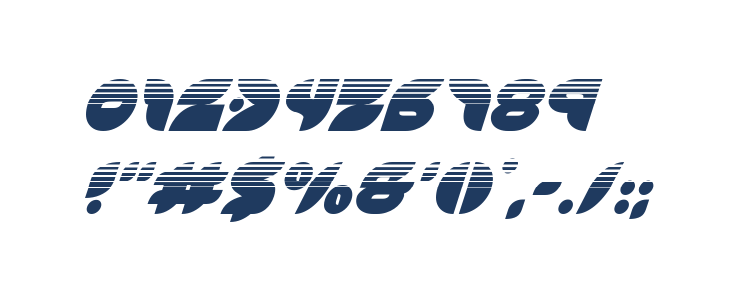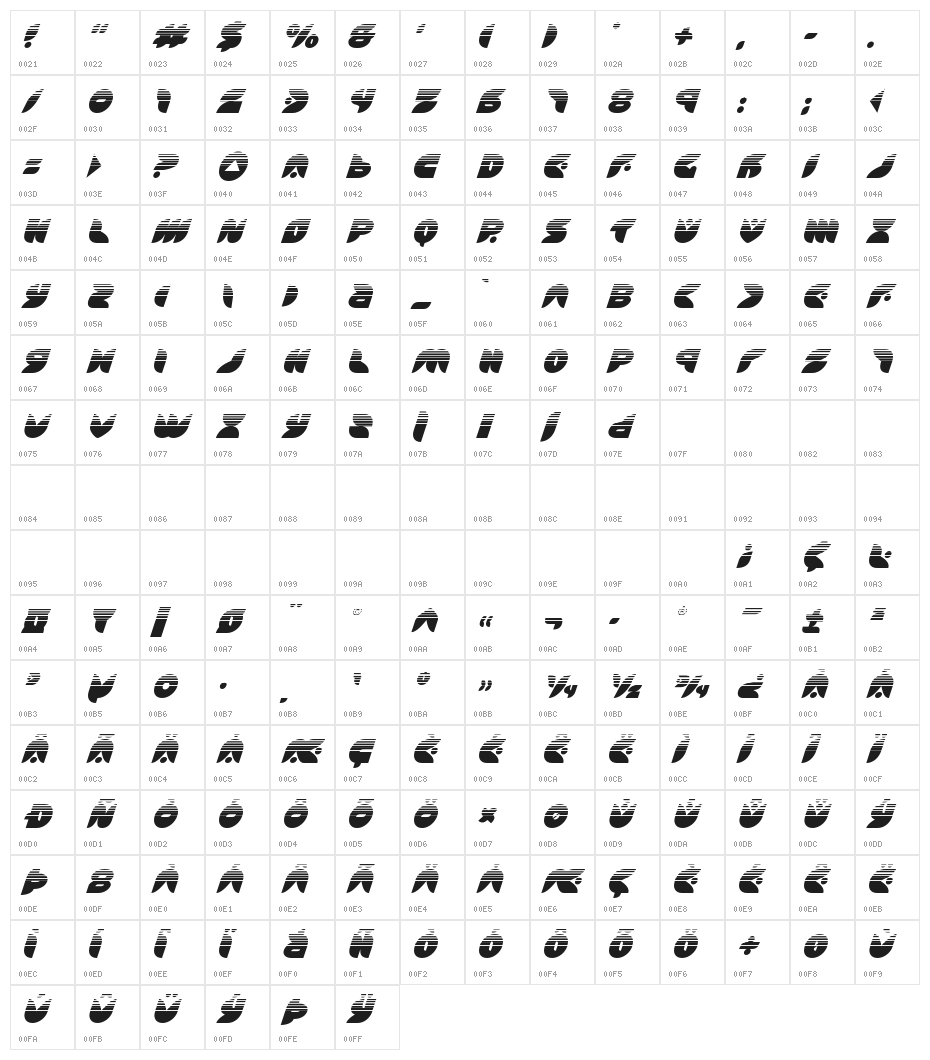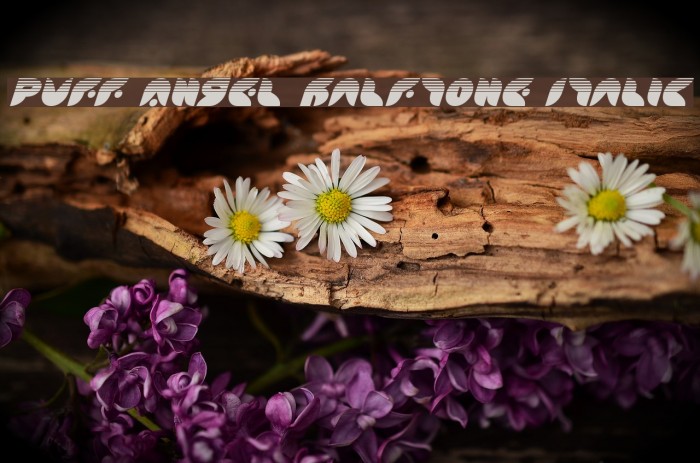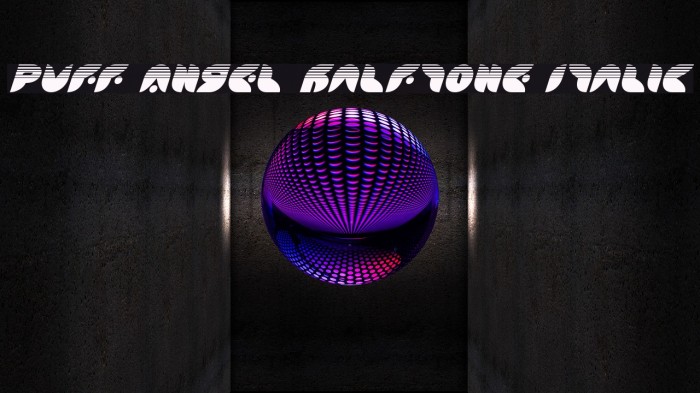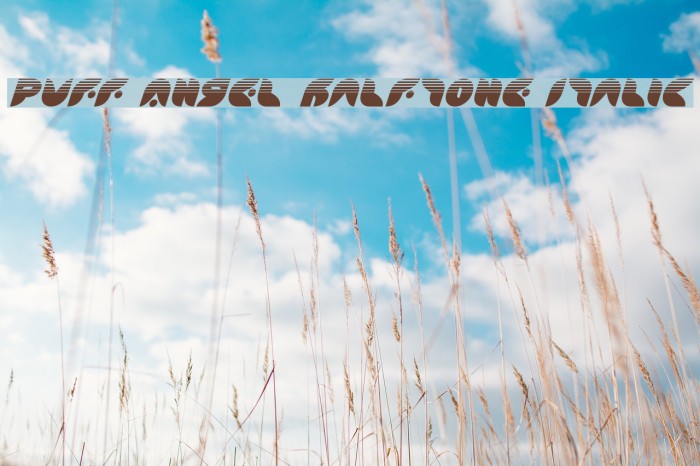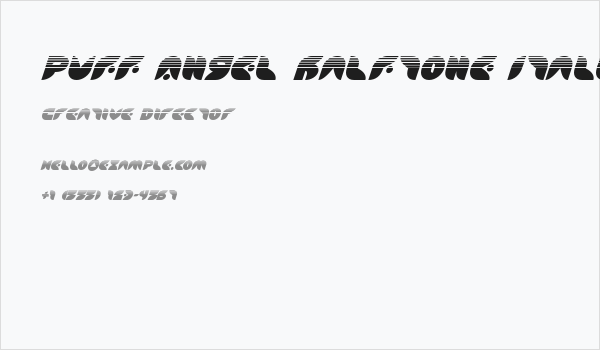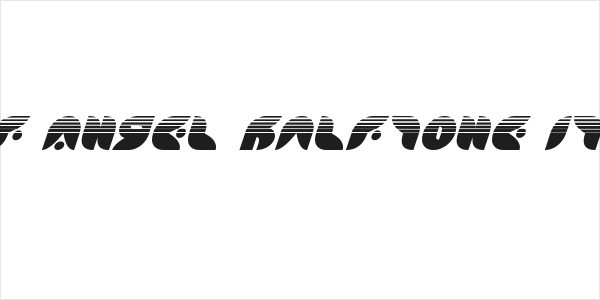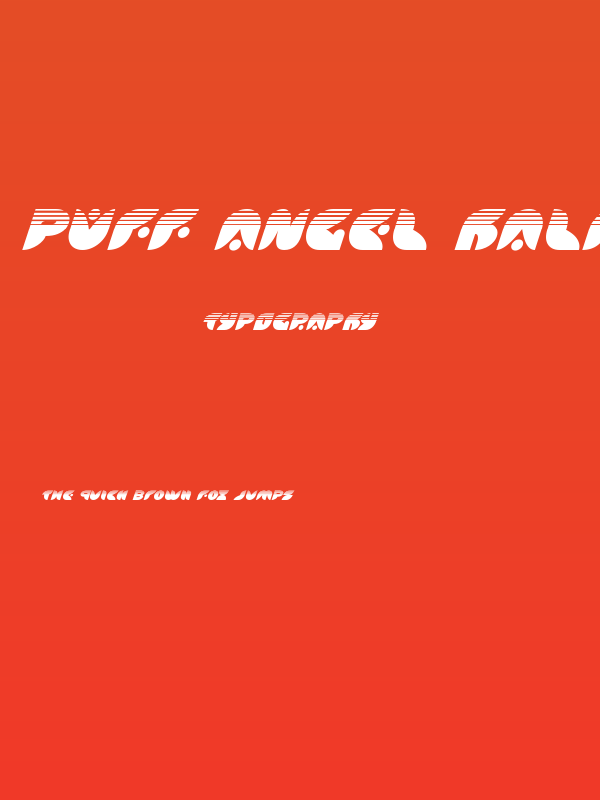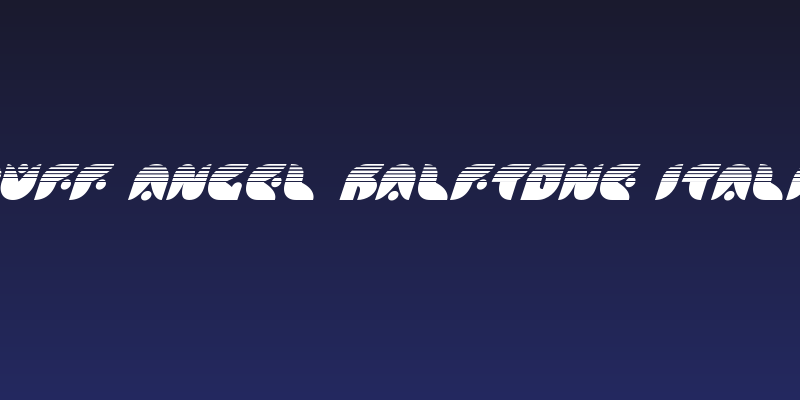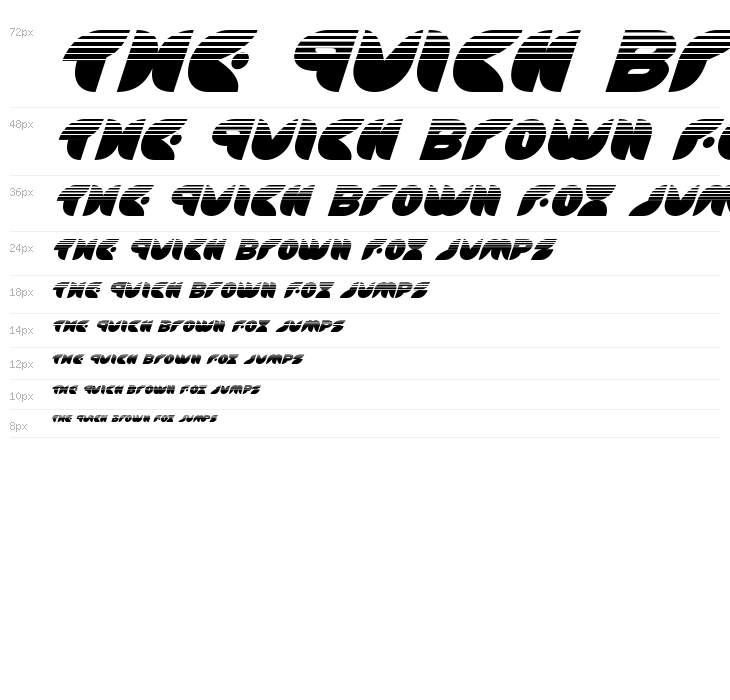
Puff Angel Halftone Italic Font
Puff Angel Halftone Italic Description
This font features a bold, dynamic style with a halftone effect that gives it a unique, textured appearance. The characters are italicized, adding a sense of movement and energy. Each letter is composed of thick, rounded strokes with horizontal lines cutting through, creating a layered, dimensional look. The design is modern and eye-catching, making it suitable for projects that require a bold statement. The uppercase and lowercase letters maintain a consistent style, with numerals and special characters following the same design principles. The overall aesthetic is both futuristic and playful, ideal for creative and innovative applications.
| Proposed Projects | Ideal for posters, album covers, branding, and any project needing a bold, modern touch. |